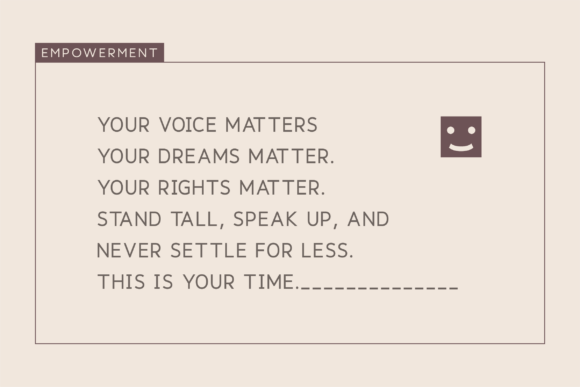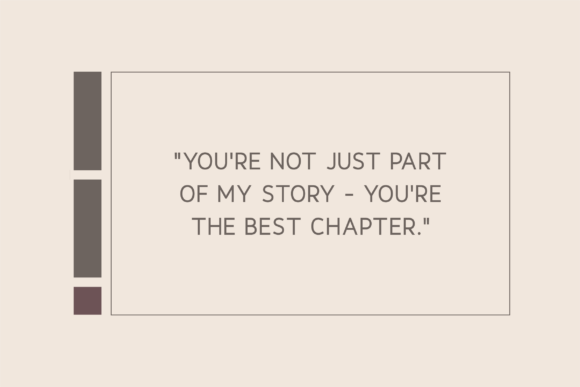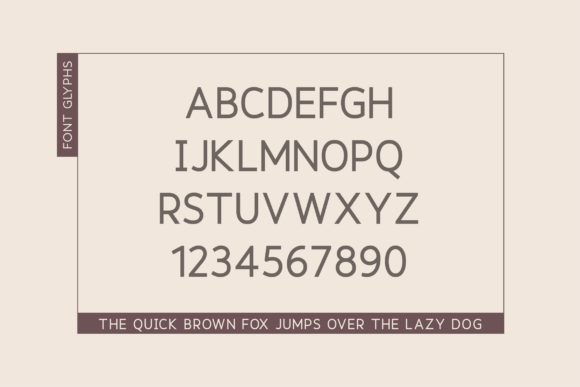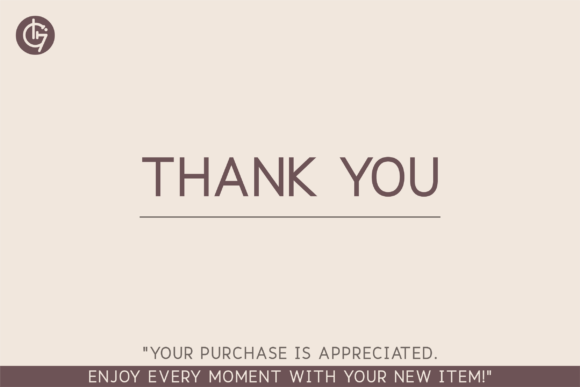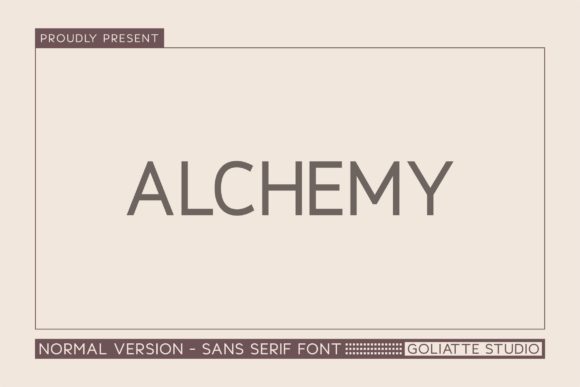
Introducing Alchemy – A Modern Sans Serif Typeface
As a designer, I’ve had my fair share of frustrating moments – like when you’re working on a project, and you just can’t seem to find the right font. I recall a particularly challenging project where I was tasked with creating a bold, modern logo for a tech startup. The client wanted something that exuded professionalism and impact, but I was struggling to find a font that fit the bill. That’s when I discovered Alchemy – a game-changing, all-caps sans serif font that has since become a staple in my design toolkit.
The Alchemy Advantage
Alchemy is a bold, all-caps sans serif font designed for the modern designer. With its clean lines and minimalist aesthetic, this typeface exudes strength and authority. It is perfect for projects that require a sense of professionalism and impact. Whether you’re designing a logo, website, or print material, Alchemy makes a statement with its sharp, crisp edges.
Key Features of Alchemy
- All-caps design for maximum impact
- Modern, minimalist style with a focus on readability
- Bold, clean lines for a confident and professional look
- Ideal for branding, logos, packaging, and digital design
- Perfect for both large-scale headlines and smaller text blocks
What I Love About Alchemy ✨
- ✅ Versatility: Alchemy’s strong, geometric structure ensures that it can be used across various platforms, from digital interfaces to high-end branding.
- ✅ Readability: The all-caps design and clean lines make Alchemy perfect for headlines, posters, and anywhere you need your message to stand out.
- ✅ Professional Look: Alchemy’s bold, modern style gives any design a confident and professional look.
While Alchemy is an excellent font, there are a few things to keep in mind:
- 🤔 Limited Use Cases for Body Text: Due to its bold nature, Alchemy might not be the best choice for lengthy body text. It’s ideal for headlines and titles, but you may want to pair it with a complementary font for longer text blocks.
- 🤔 Glyph Limitations: As with any font, there may be limitations to the number of glyphs available. However, Alchemy’s core features are well-suited for most design needs.
The Story Behind Alchemy
Alchemy was designed with the modern designer in mind. The creator, a seasoned typographer, aimed to craft a font that would meet the demands of contemporary design while maintaining a timeless aesthetic. Inspired by the geometric shapes and clean lines of modern architecture, Alchemy was born – a bold, versatile font that embodies professionalism and impact.
| Author | Goliatte Studio |
| What makes Alchemy suitable for branding? | Alchemy’s bold, modern style and clean lines make it perfect for creating a professional and lasting impression in branding. |
| Can I use Alchemy for body text? | While Alchemy is ideal for headlines and titles, it may not be the best choice for lengthy body text due to its bold nature. |
| Is Alchemy suitable for digital interfaces? | Yes, Alchemy’s strong, geometric structure and clean lines make it well-suited for digital interfaces. |
| Can I use Alchemy for print materials? | Absolutely! Alchemy’s versatility makes it perfect for a wide range of print materials, from posters to packaging. |